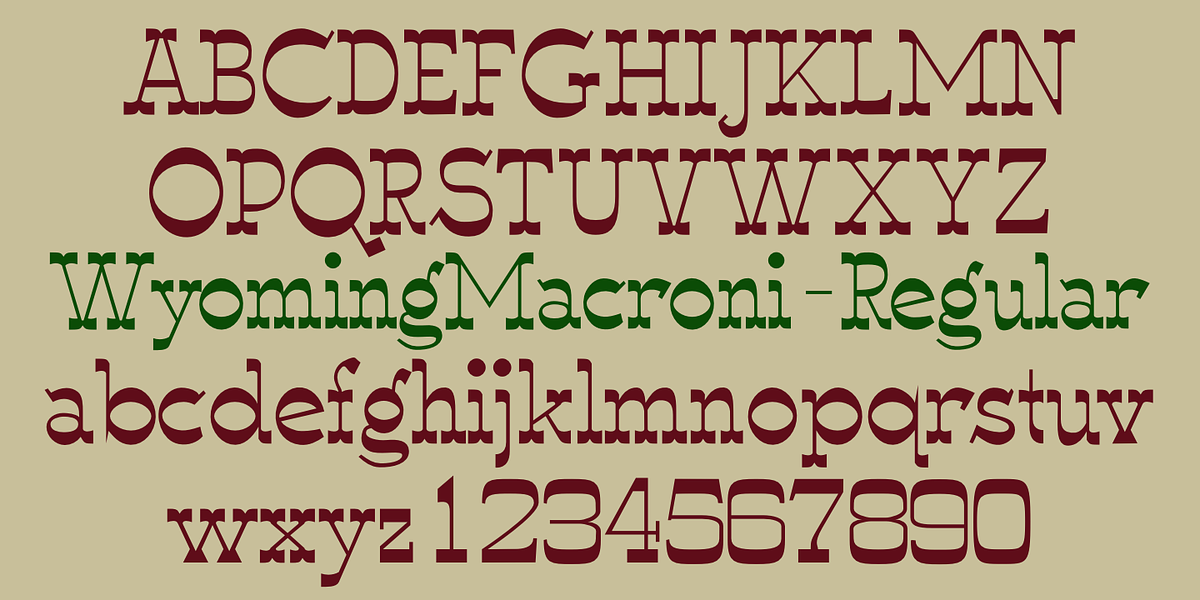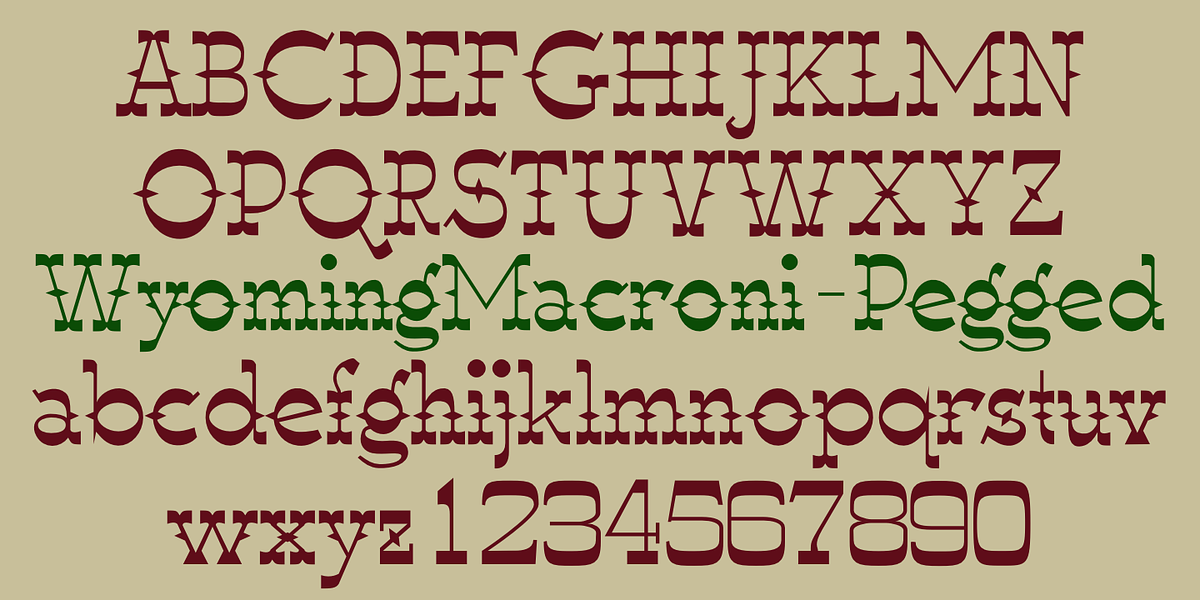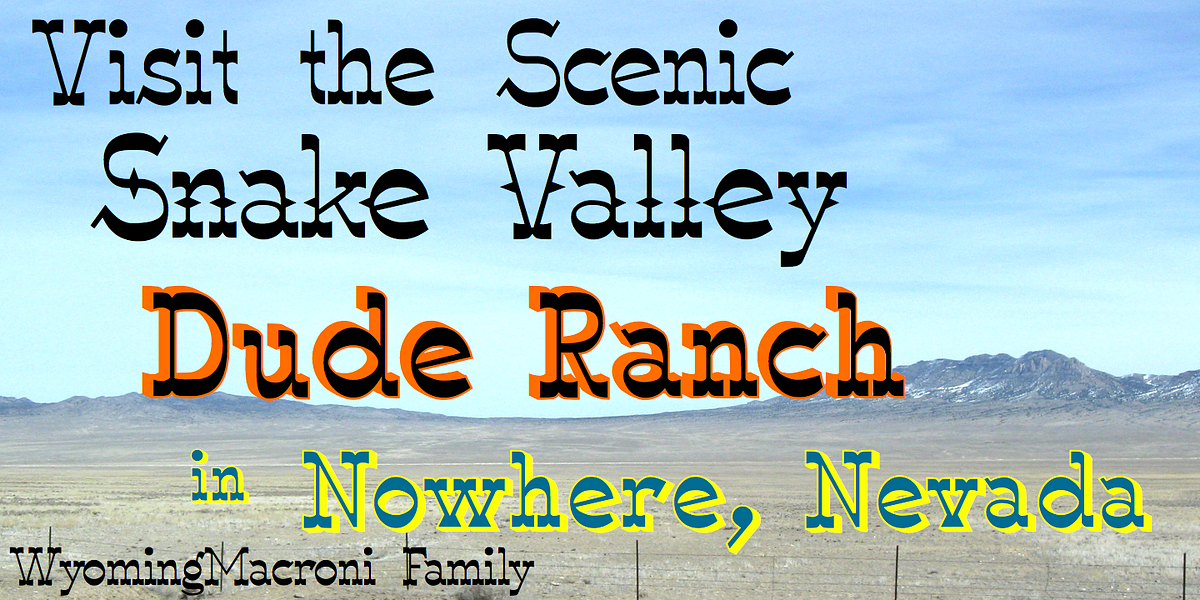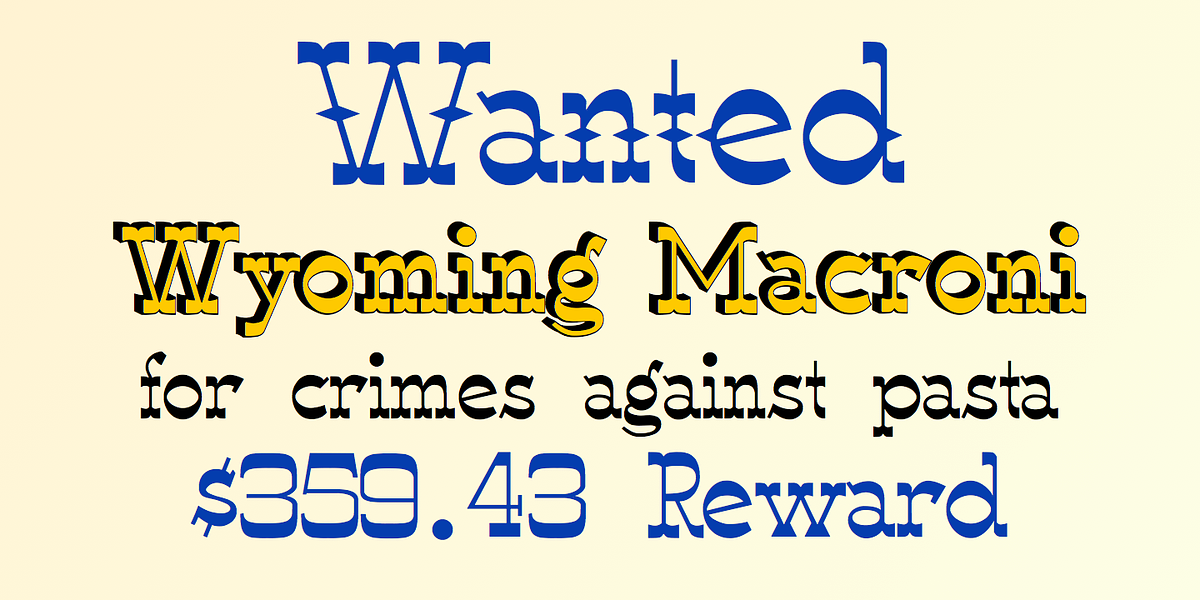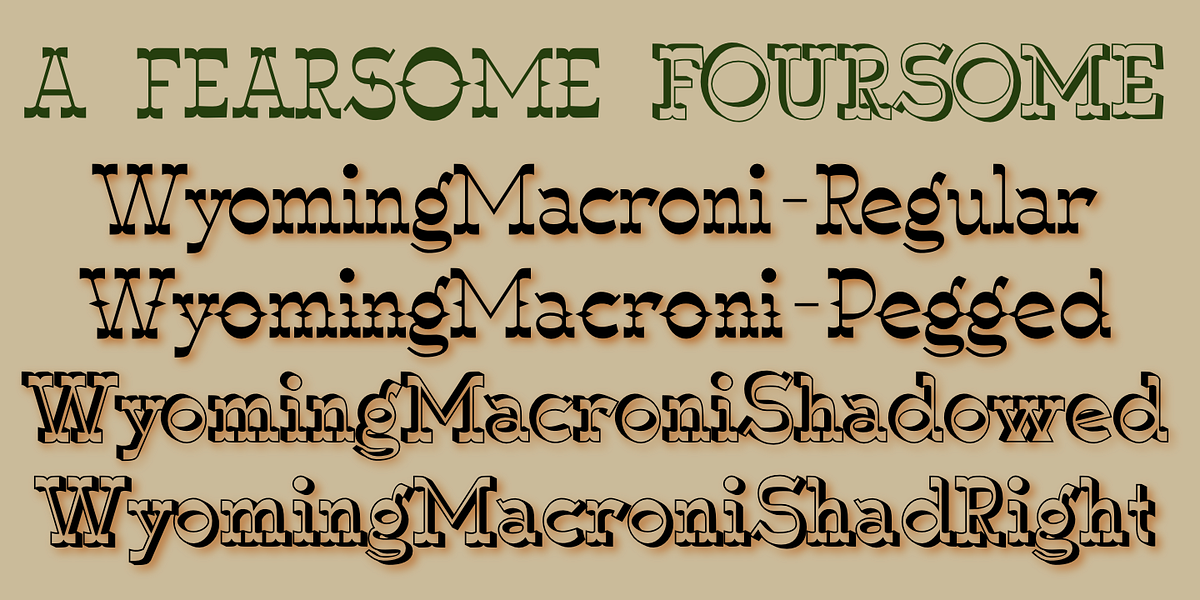
Wyoming Macroni
Wyoming Macroni is a western-style font characterized by its split-serif design (Tuscan) and curly details. It comes in shadowed variations that allow for creating two-colored letter effects. The font's ornate and rustic personality makes it suitable for branding and display purposes.